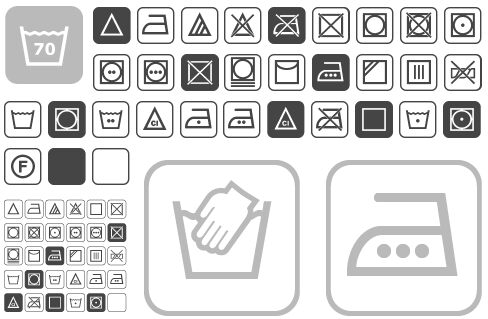
Notice3Std by Denis A Serikov is a free laundry-care pictogram font built from compact symbols with the firm clarity of instruction labels. Repeated rounded frames, even line weights, and simplified containers, circles, and warning shapes give the collection a practical order as smooth curves alternate with angular geometry across the set.
Garment care labels are easily its most convincing home. The same direct symbols can organize printed clothing packaging, textile guides, and sewing manuals, where quick recognition matters more than typographic expression. Across those uses, the shared domestic-care imagery turns each mark into an instructional icon rather than ordinary lettering.